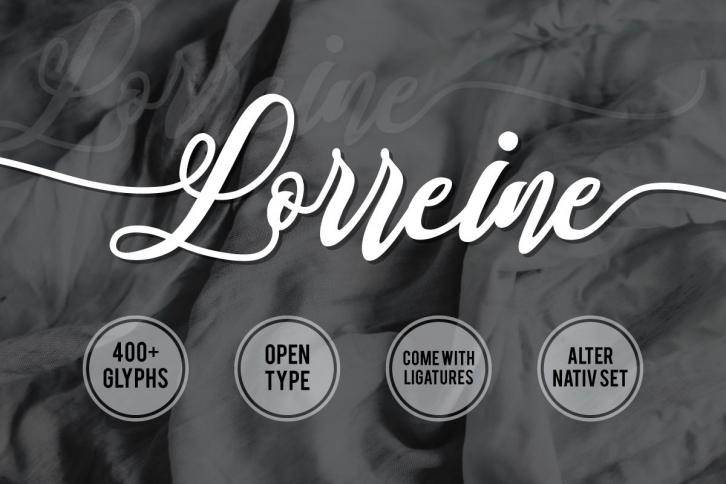
Lorreine On is a script font. This font is ideal for branding and decorate your any project. This fonts are perfect for wedding invitation or your blog. you can create a logo or beautiful frame for your home. Or just use for your small business, book covers, stationery, marketing, magazines and more. File Include
- Numerals & Punctuations
- Alternative Set